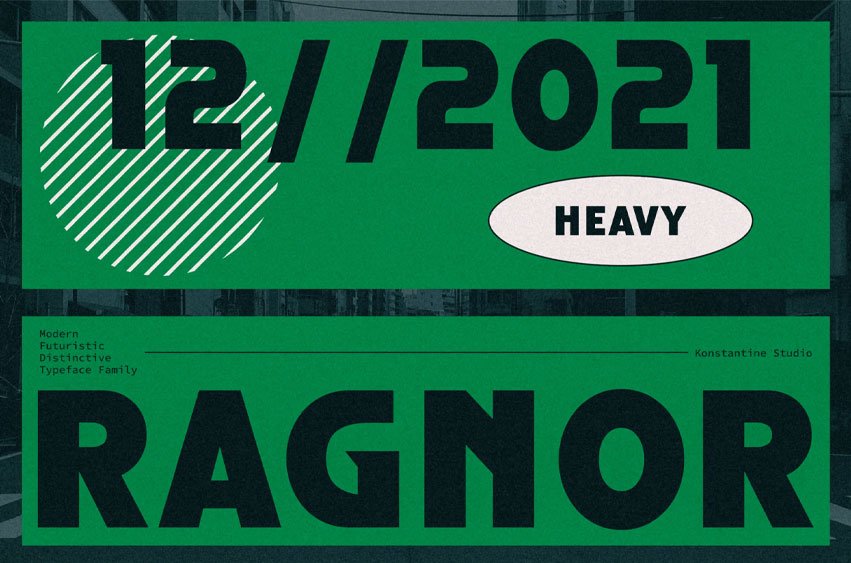
Ragnor Heavy Font is a member of the RAGNOR family, a modern and futuristic sans serif typeface. Inspired by the trend of the metaverse and digital domination in late 2021.
Tailored to suit well with your visual treatment that aims to the longevity of the future era.